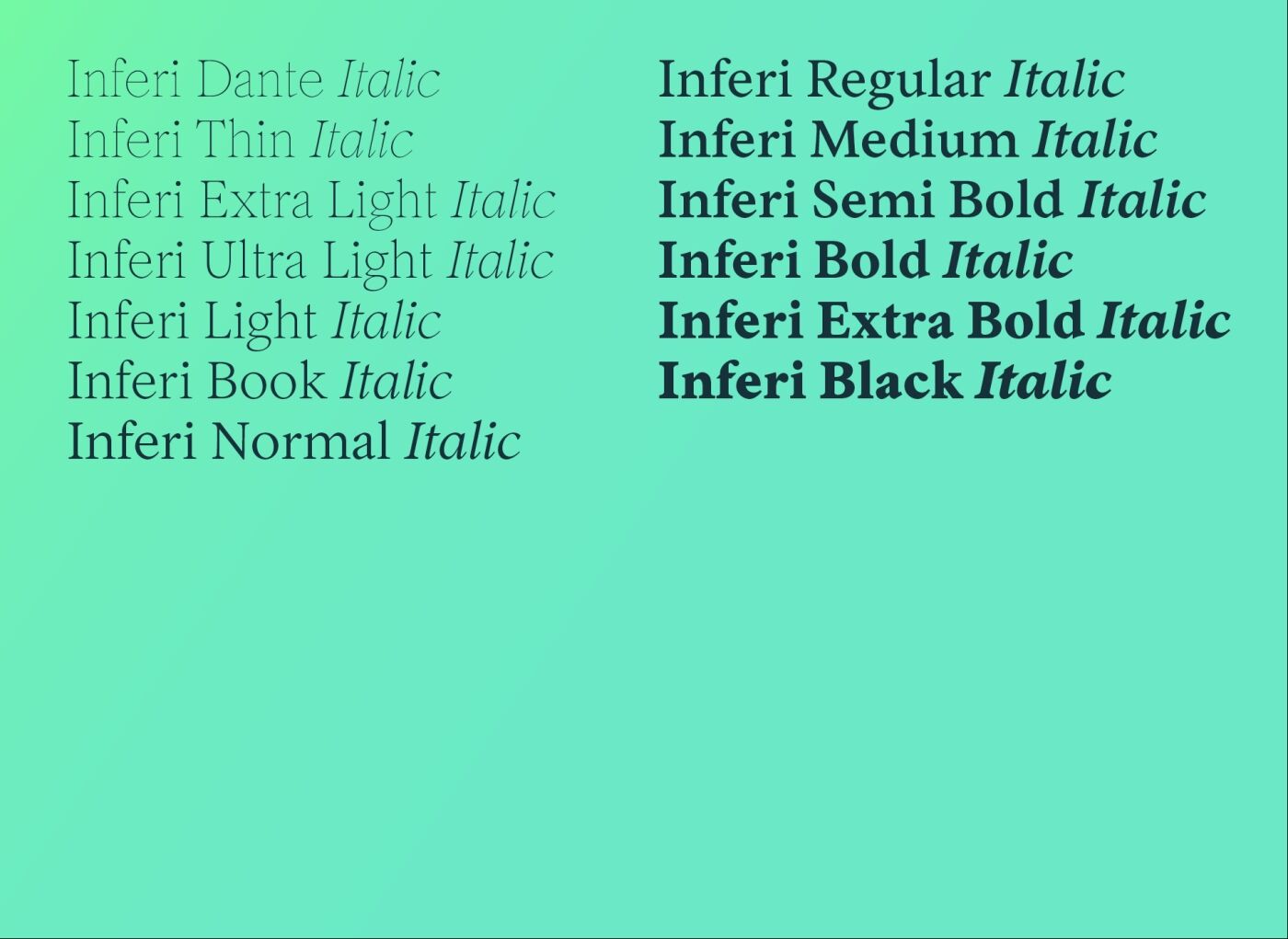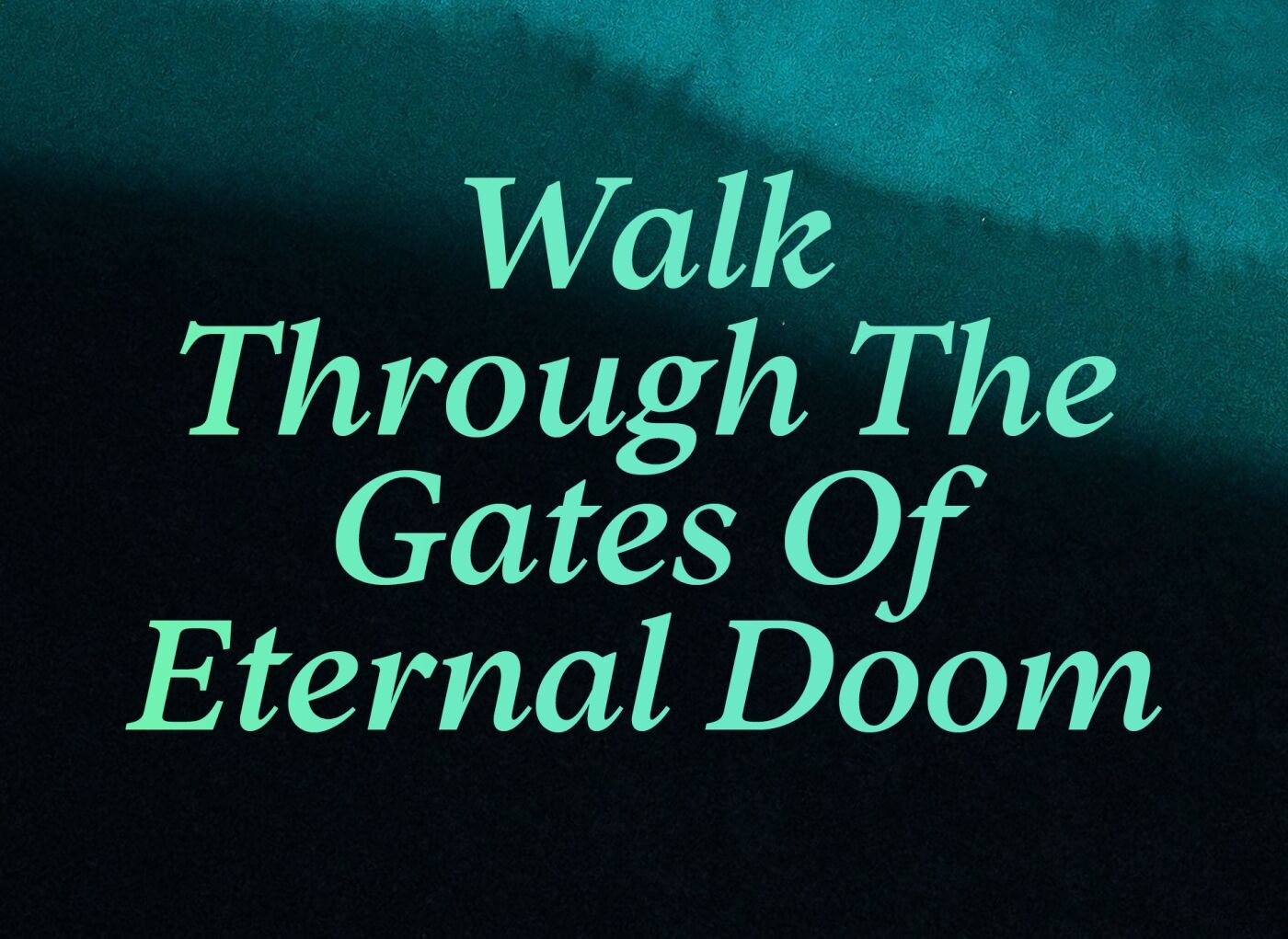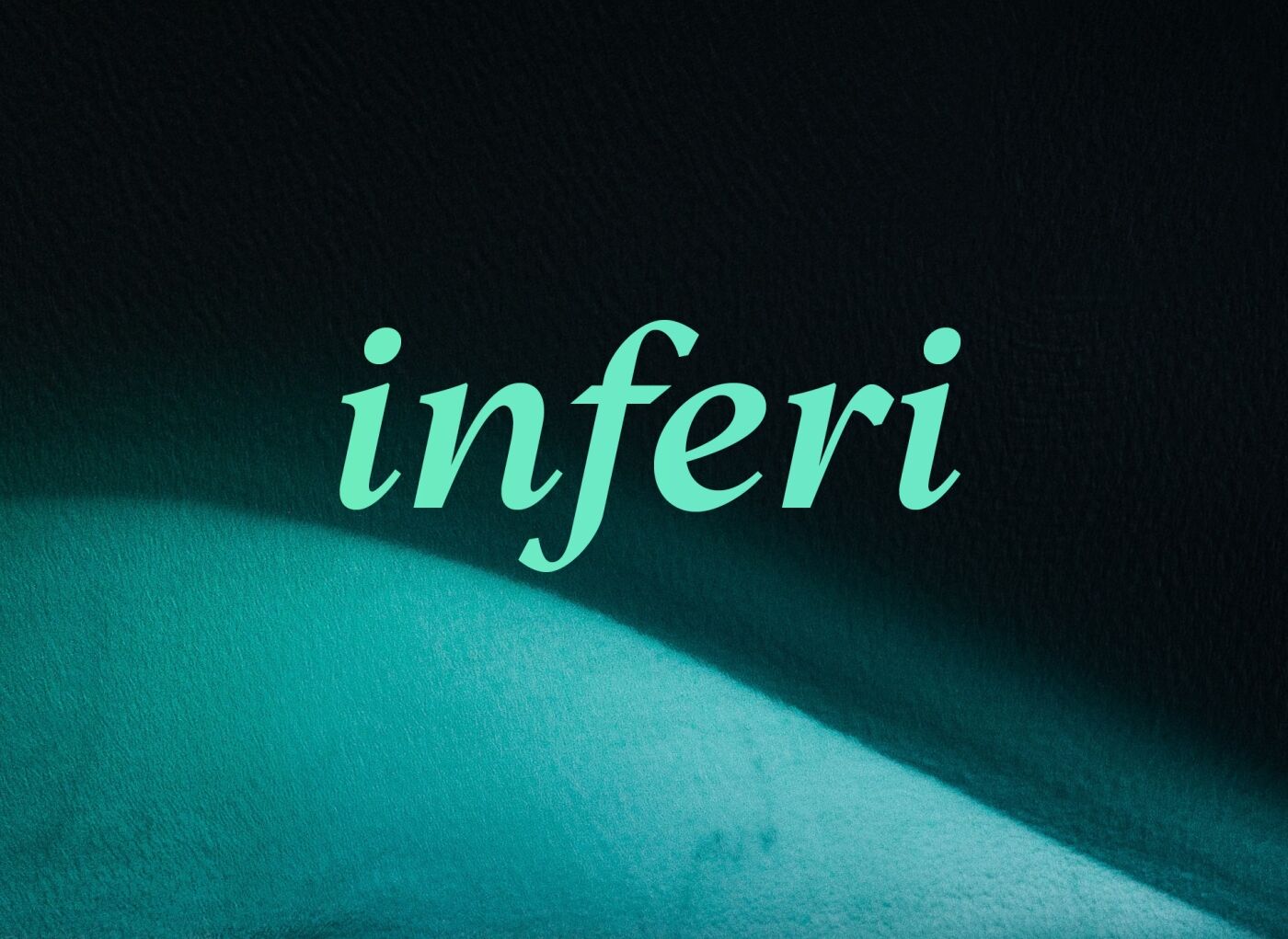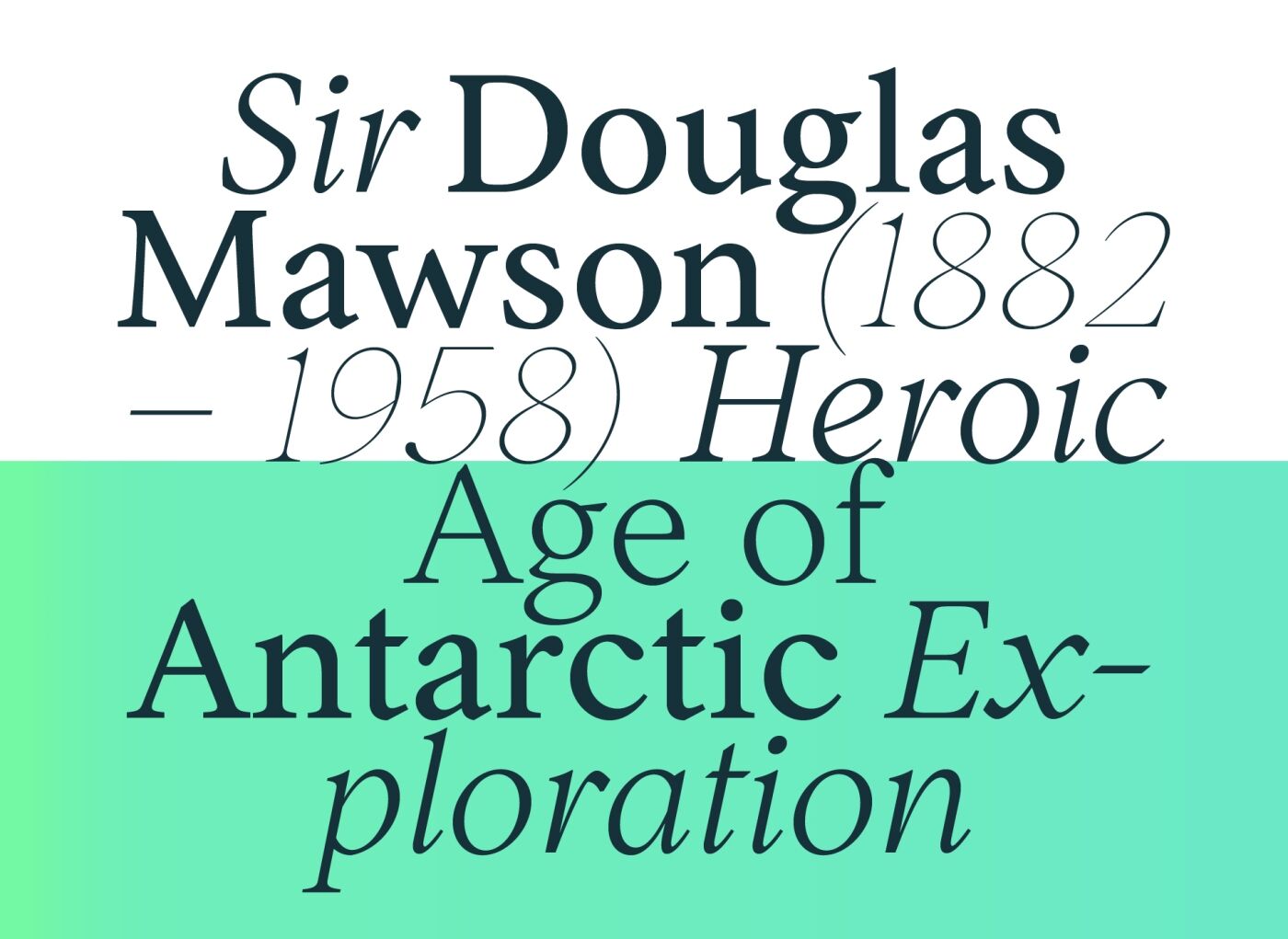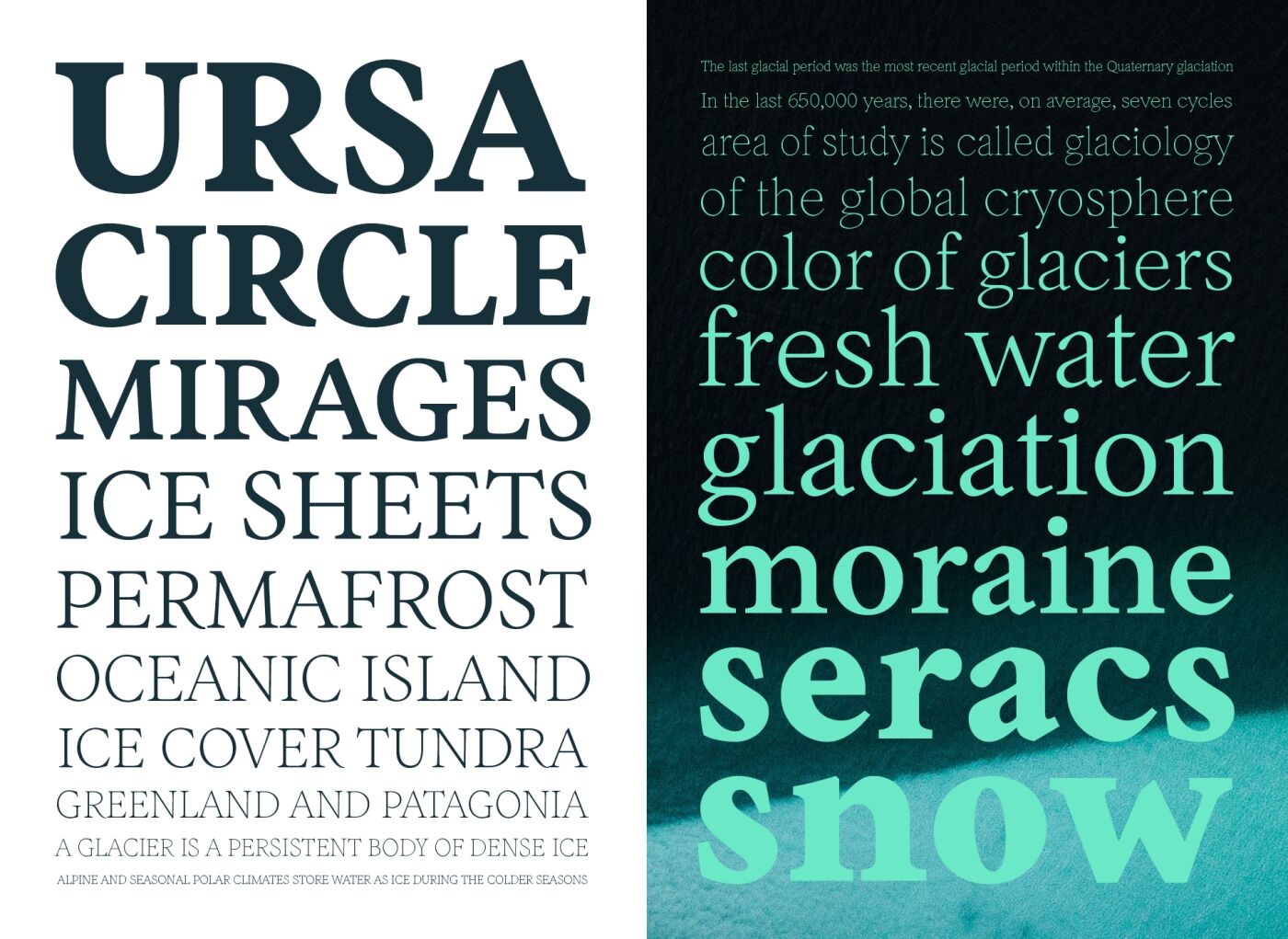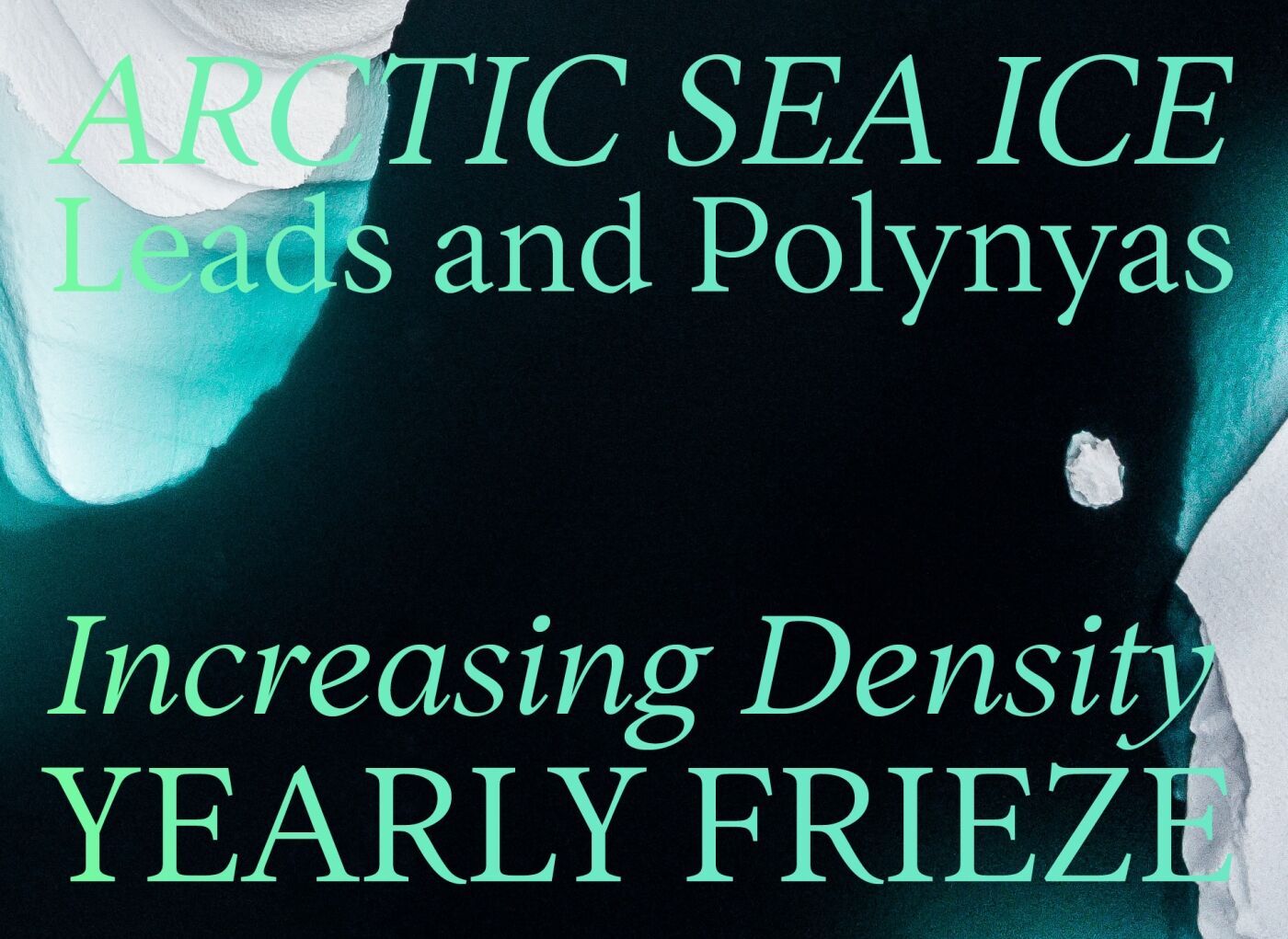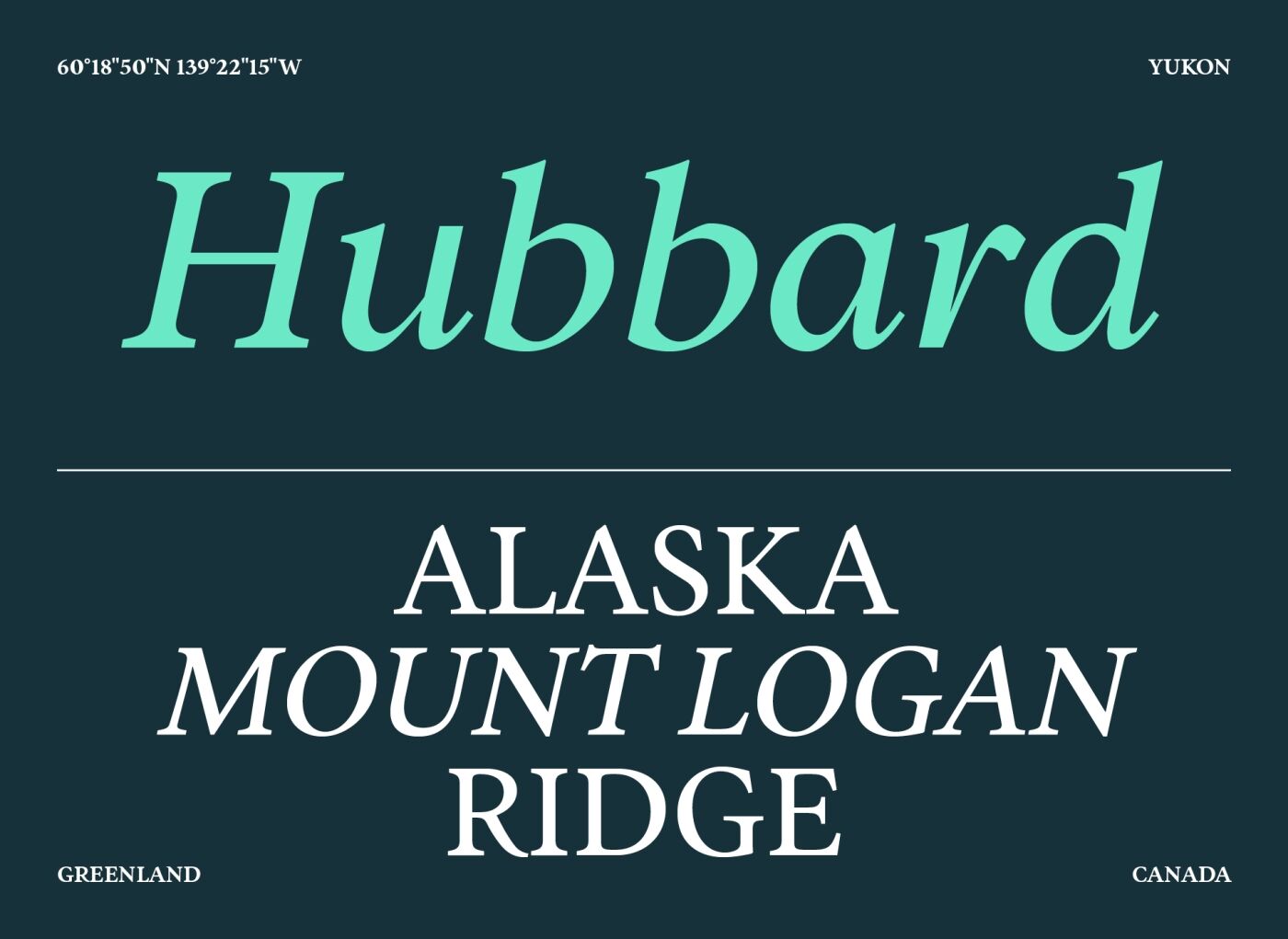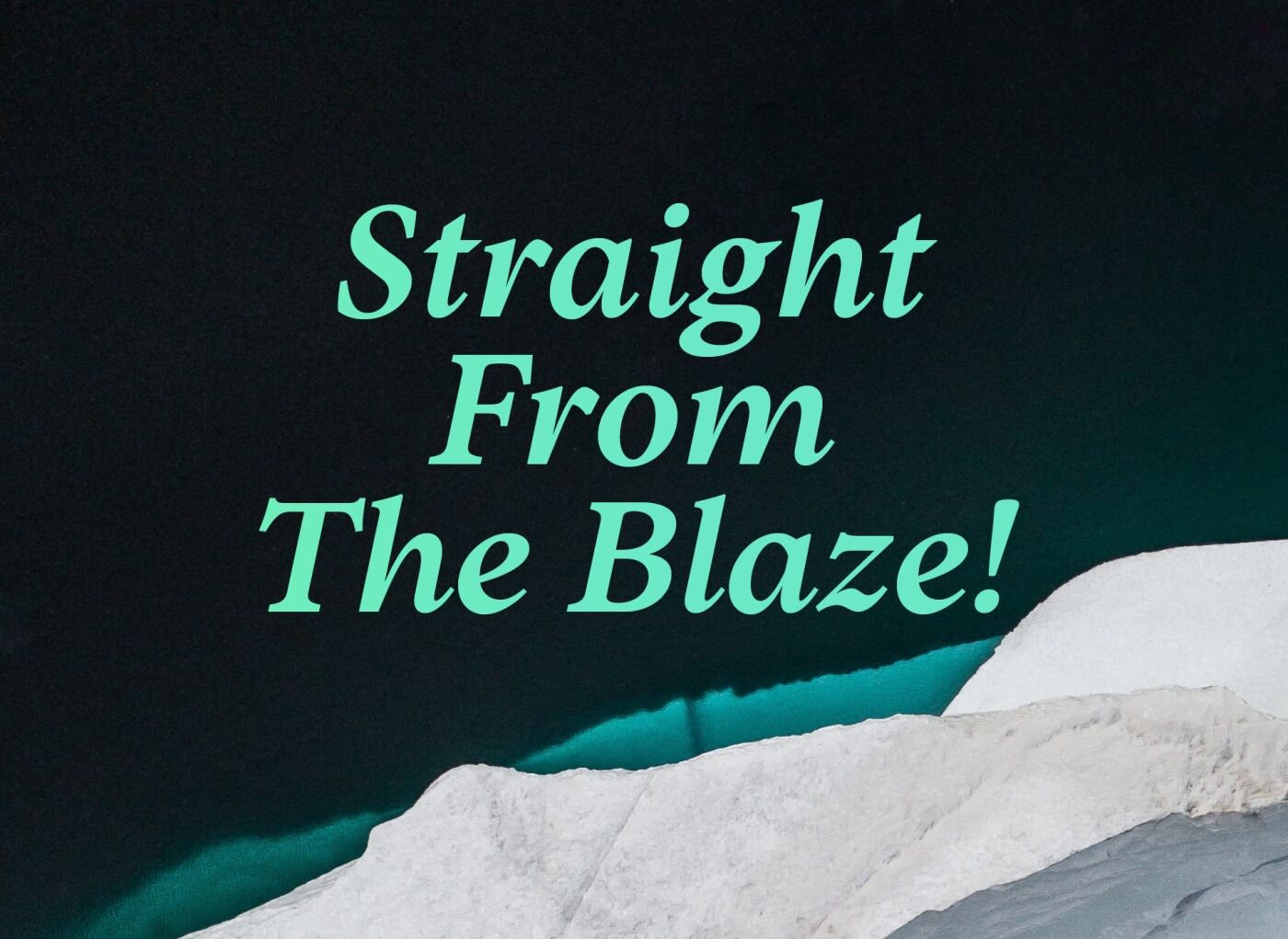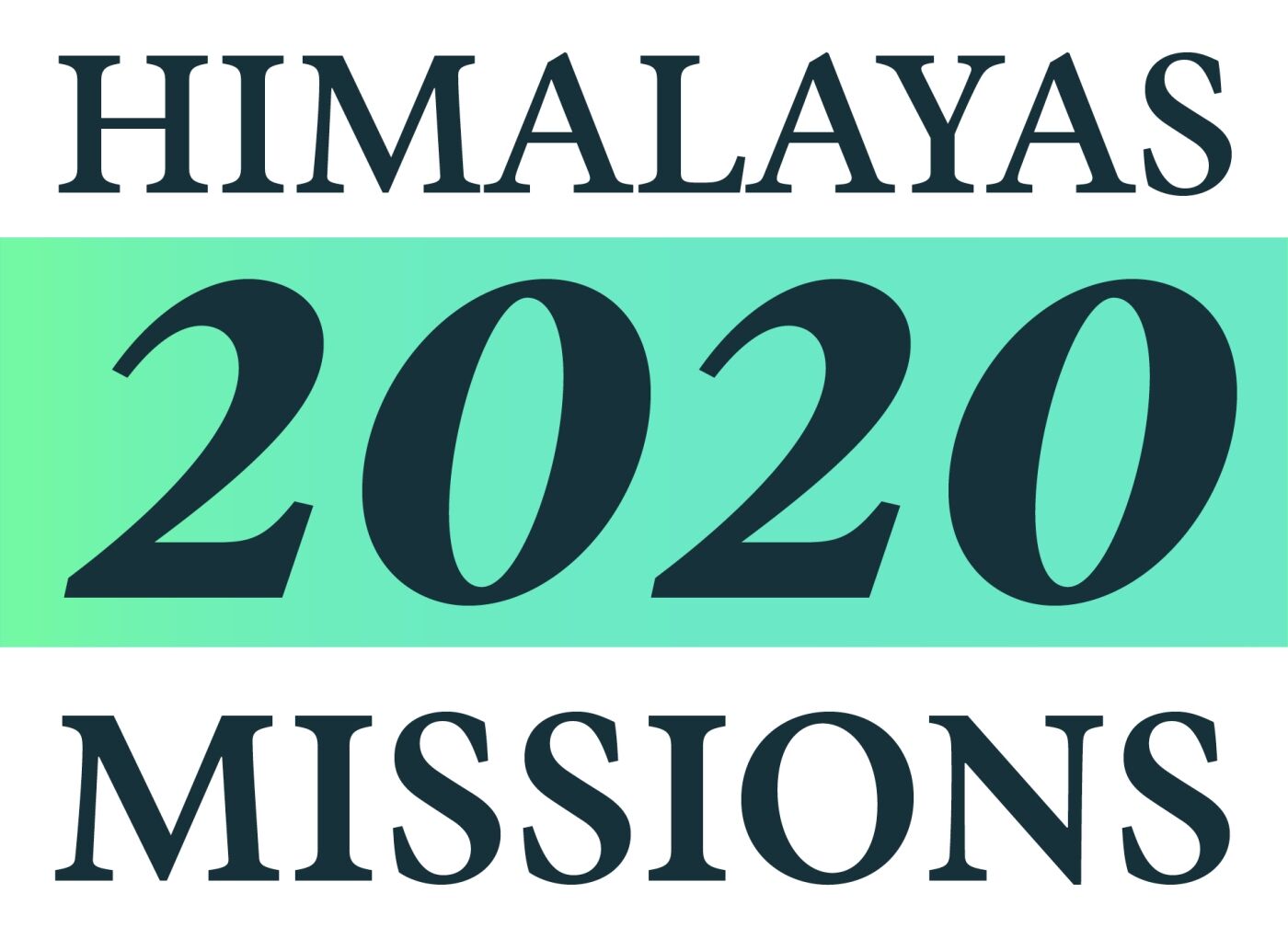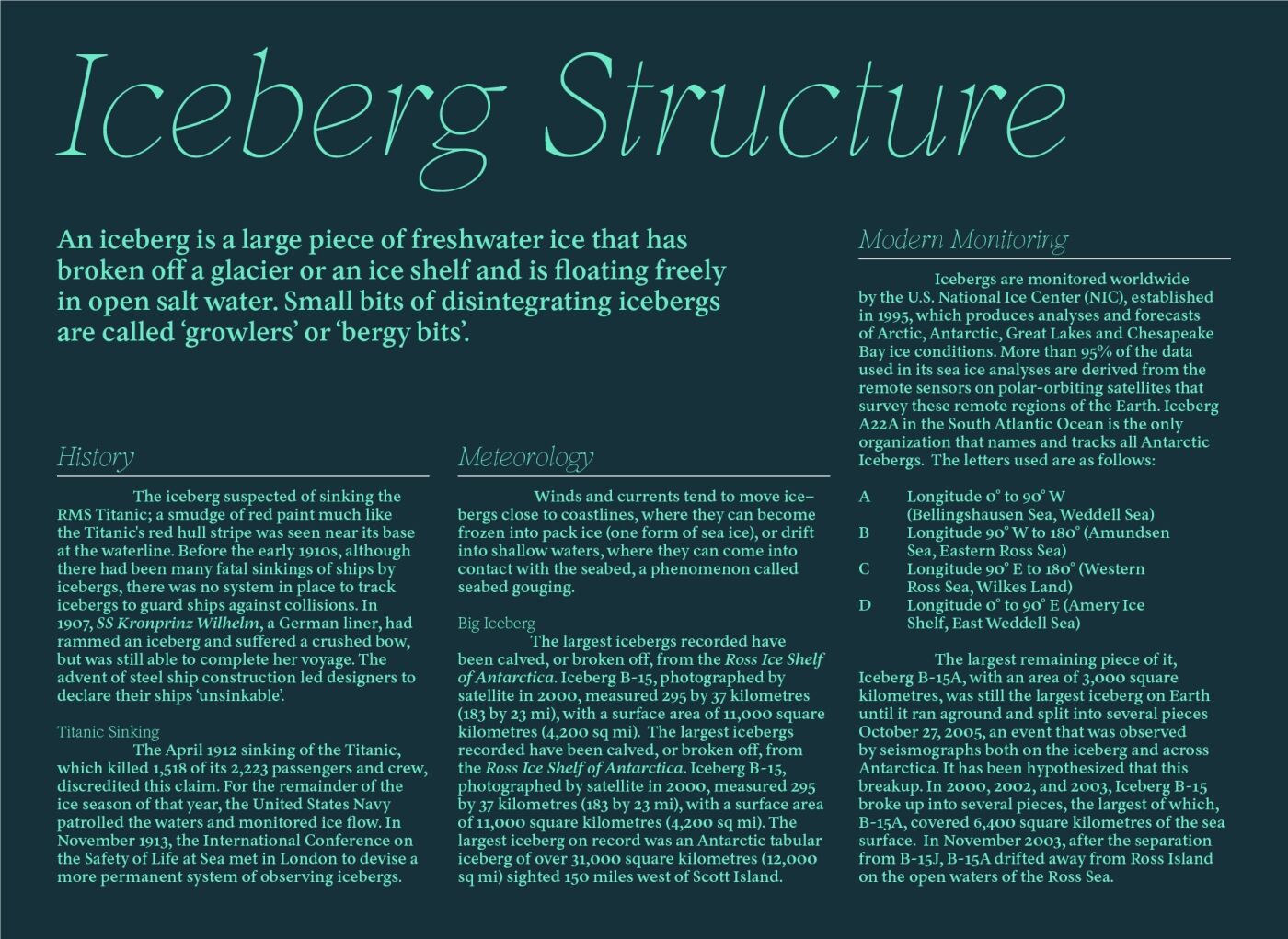
"Abandon All Hope Ye Who Enter Here"
Inferi takes its roots in the Garalde era. To cover a large panel of uses it has been designed in various styles and weights, allowing one to have an extensive type-tool for any kind of usage. Whether the need would be on book design, poster design or editorial uses, Inferi will be a nice fit to complex type-shaping. If your goal is to reach for a printed-type feeling on digital medium (websites, apps and such), you will find Inferi to be your tool of choice. A well balanced family with squared edges and round finishes in the roman version, the italics cut deep into a more modern approach. Drawn with a careful “hand style” touch. A nice balance for complex layouts as the optical grey between roman and italics version will allow great legibility. Inferi is a bridge between calligraphy and letterforms carved in stone: it breaks between smooth curves and straight angles.